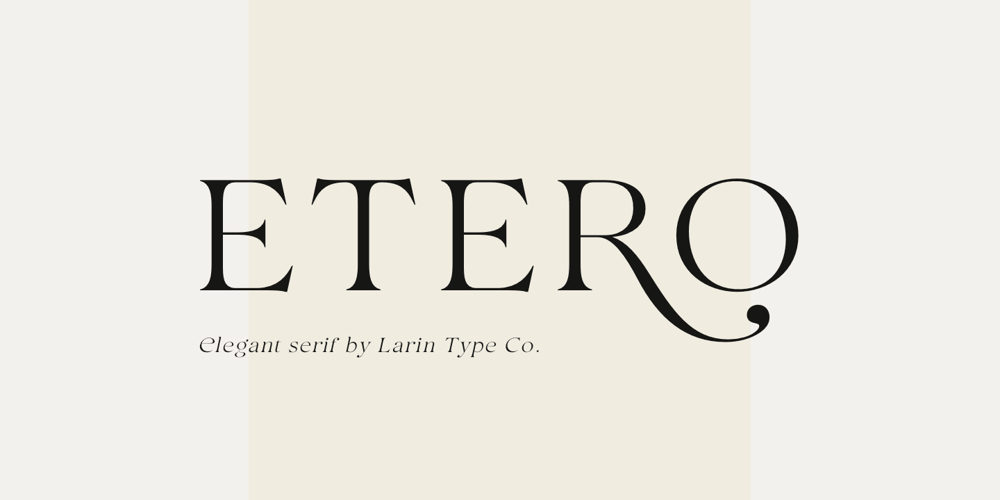
Etero
Etero font
Etero Font Family was designed by Pavel Larin and published by Larin Type Co. Etero contains 4 styles and family package options. Etero is a modern and elegant serif font that includes four typefaces: regular, outline, italic, and outline italic.This font has a light weight and looks amazing in logos, branding, arranging wedding invitations, business cards, packaging, titles and much more and also works perfectly with text, it is very readable and recognizable. This font includes alternates for Uppercase and Lowercase, with them you can make your project more elegant and unique and the slanted style will add dynamics to your design. This font is easy to use has OpenType features.